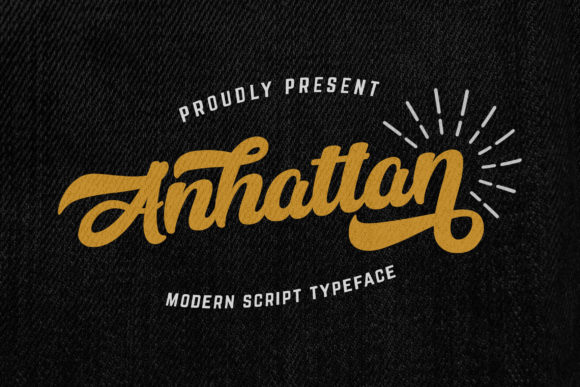
The Nostalgic Charm of Anhattan Font: A Designer’s Delight
I’ll never forget the time I was working on a vintage-themed craft project, and I just couldn’t find the right font to match the aesthetic. My client wanted something that screamed retro fun, but I was stuck in a design rut. That’s when I stumbled upon Anhattan Font, and it was love at first sight! 💕
Anhattan is a nostalgic retro script with a fun feel that’s perfect for designers, crafters, and creative hobbyists looking to add a touch of vintage charm to their projects. In this article, we’ll dive into the world of Anhattan Font, exploring its features, how to use it, and some similar fonts you might love.
An Honest Review of Anhattan Font
- ✨ Unique and quirky character set that’s perfect for adding personality to your designs
- ✅ Excellent for vintage-themed projects, such as craft tutorials, party invitations, and social media graphics
- 💫 Supports OpenType features, glyphs, and stylistic alternates for added versatility
- 🎉 Fun and playful aesthetic that’s sure to bring a smile to your face
While Anhattan Font is an amazing addition to any design project, there are a few things to keep in mind:
- ⚠️ Some characters may be a bit too ornate or decorative for very formal or professional designs
- 🤔 Limited use of uppercase letters, which may require creative workarounds for all-caps titles or headings
The Backstory of Anhattan Font
Anhattan Font was inspired by the classic typography of the 1950s and 60s, with a dash of modern playfulness. Its designer aimed to create a font that would evoke the nostalgia of a bygone era, while still feeling fresh and fun. The result is a unique and charming font that’s perfect for adding a touch of retro flair to your designs.
| Font Name | Anhattan Font |
| Author | StringLabs |
Q: What type of projects is Anhattan Font best suited for?
A: Anhattan Font is perfect for vintage-themed projects, such as craft tutorials, party invitations, and social media graphics.
Q: Does Anhattan Font support OpenType features?
A: Yes, Anhattan Font supports OpenType features, glyphs, and stylistic alternates for added versatility.